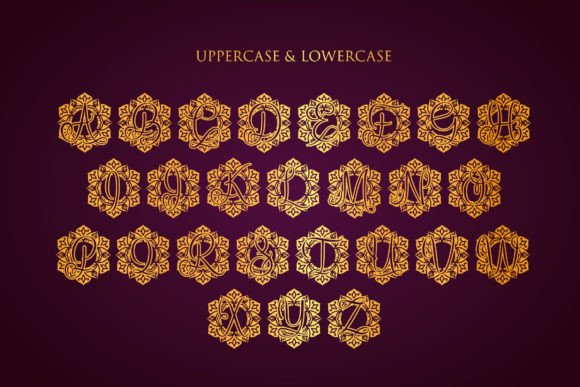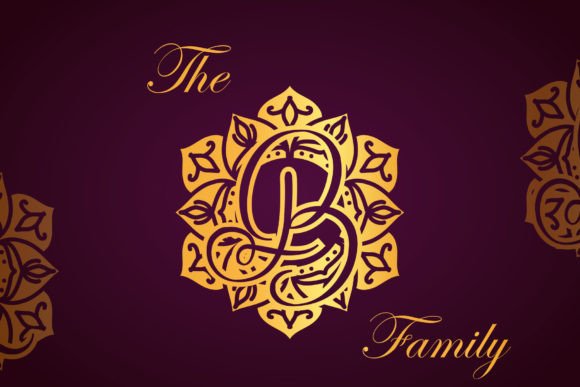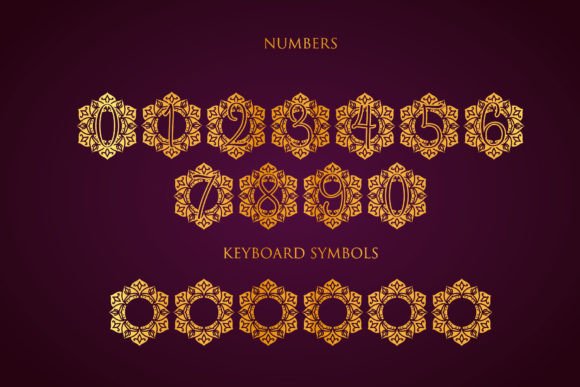
Introduction to Passion Mandala Monogram Font
Passion Mandala Monogram is an elegant and unique decorative font, inspired by the elegance of mandala art.
Use it for your craft, logo, or anything in your collection .
Why Choose Passion Mandala Monogram Font?